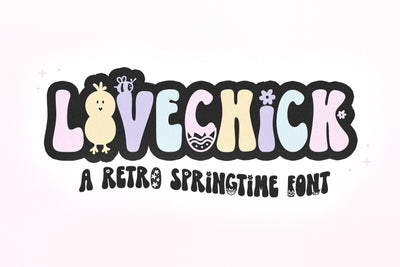
LoveChick - Retro Easter / Spring Font
LoveChick is a retro font perfect for all of your Spring/Easter designs.. or any design!
This font includes a basic set of A-Z retro letters and also a handful of fun Spring themed letters.
Type with lowercase for regular retro letters - type with caps only for a fun decorative set of letters - mix & match!
This is an ALL CAPS font
LoveChick is perfect for - retro designs, Spring designs, Easter shirts, svg files, procreate, stickers, logos, greeting cards, craft projects, posters, social media and more!